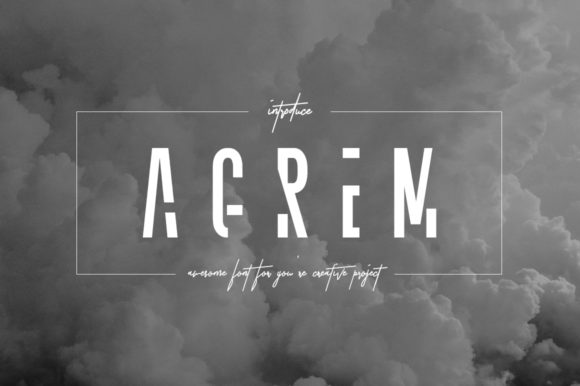
The Agrem Font: A Designer’s New Best Friend
I still remember the frustration of working on a project, hours spent crafting the perfect design, only to have it all come crashing down because of one simple thing: the font. I was working on a client’s branding project, and I just couldn’t find the right sans serif font that would make their headlines pop. That’s when I stumbled upon Agrem Font, and let me tell you, it was love at first sight! πŸ’•
What is Agrem Font?
Agrem is a strong and captivating sans serif font, best suited for headlines of all sizes, as well as for blocks of text that have both maximum and minimum variations. Whether it’s for web, print, moving images, or anything else – Agrem will look spectacular. Its clean lines, balanced proportions, and versatile design make it an excellent choice for any design project.
What I Love About Agrem Font
• ✨ Versatility: Agrem Font is incredibly versatile, making it perfect for a wide range of design projects, from digital media to print materials.
• βœ… Readability: The font is highly legible, even at small sizes, making it ideal for body text and captions.
• πŸ’― Aesthetic appeal: Agrem Font has a unique, modern look that adds a touch of sophistication to any design.
While Agrem Font is an excellent choice for many design projects, it’s not without its quirks. For example:
• πŸ€” Limited italic variations: Agrem Font has limited italic variations, which may not be suitable for designs that require a more dramatic or emphasized text.
• ⚠️ Not ideal for body text: While Agrem Font is highly legible, it’s not the best choice for long blocks of body text. It’s better suited for headlines, titles, and short paragraphs.
The Backstory of Agrem Font
Agrem Font was designed with the goal of creating a strong, versatile sans serif font that would meet the needs of modern designers. The designer wanted to create a font that was both modern and timeless, with a unique aesthetic appeal that would make it stand out from other fonts. While the designer’s inspiration is not well-documented, it’s clear that Agrem Font was created with the intention of making design easier and more accessible for everyone.
Q: What is Agrem Font best suited for?
A: Agrem Font is best suited for headlines, titles, and short paragraphs, as well as for blocks of text that have both maximum and minimum variations.
Q: Is Agrem Font available in different weights?
A: Yes, Agrem Font comes in different weights, making it versatile and suitable for a wide range of design projects.
Q: Can I use Agrem Font for digital media?
A: Absolutely! Agrem Font is optimized for digital media and looks great on screens.